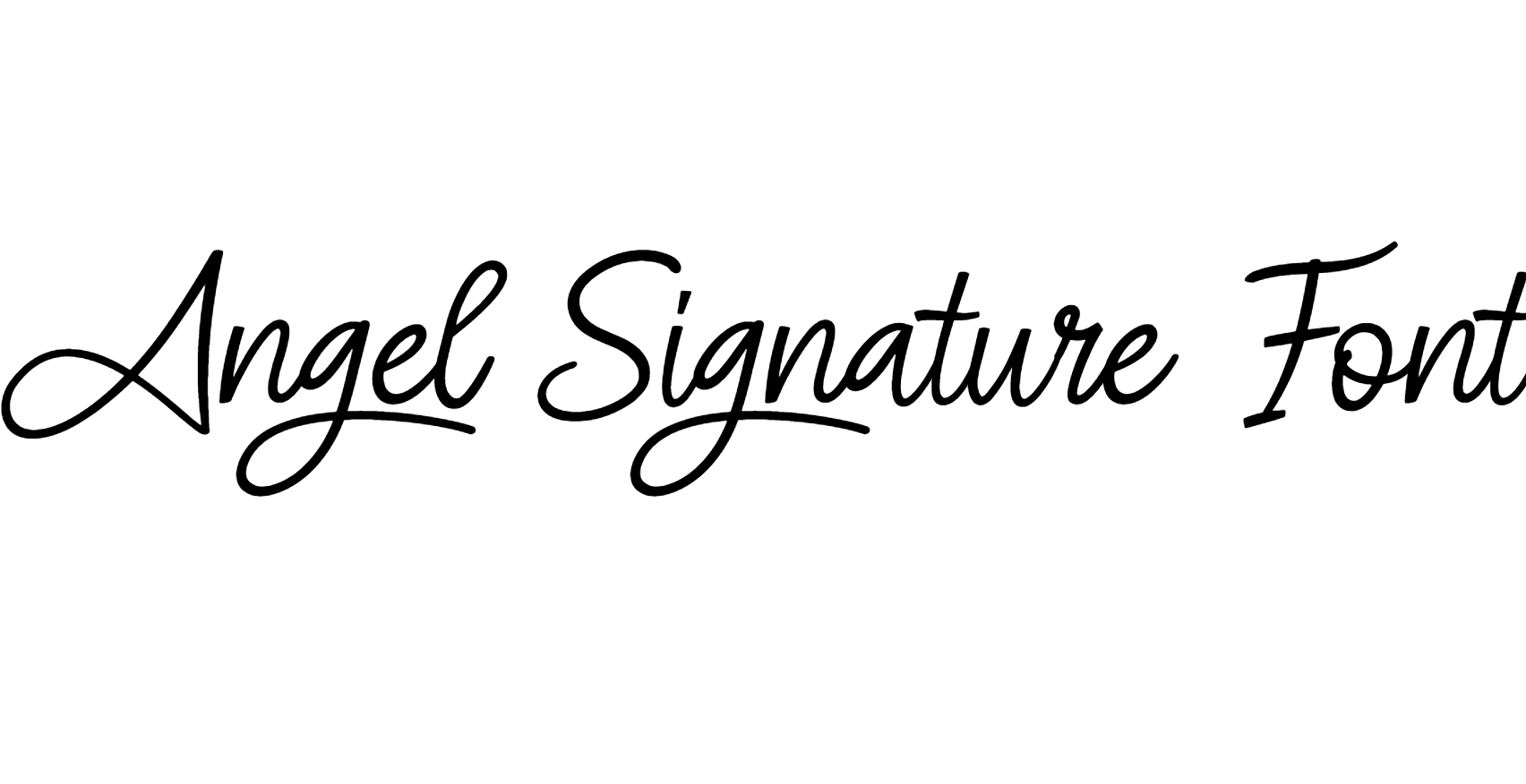
Angel Signature
Angel Signature is a handwritten font made by aminmario studio (2019). It has a casual, written-with-a-pen look that makes designs feel personal. You can download it for free and test it with your own words in the preview above.
- Designer: aminmario studio
What You Can Type With Angel Signature
You get every letter from A to Z in both cases and all the numbers from 0 to 9, which means Angel Signature can handle full sentences, dates and prices. Common punctuation such as &, !, ? and @ is included as well. It also has the accented letters you need for Spanish, French, German, Portuguese and Italian.
Where Angel Signature Works Best
Angel Signature is a natural fit for greeting cards, journal pages and friendly social posts. Set it a bit larger than you would a normal text font. Handwriting styles lose their charm once they get too small to read comfortably.
Who designed Angel Signature font?
Does Angel Signature support accented letters?
Yes. Angel Signature includes the accented letters needed for Spanish, French, German, Portuguese and Italian, so it works for more than just English.